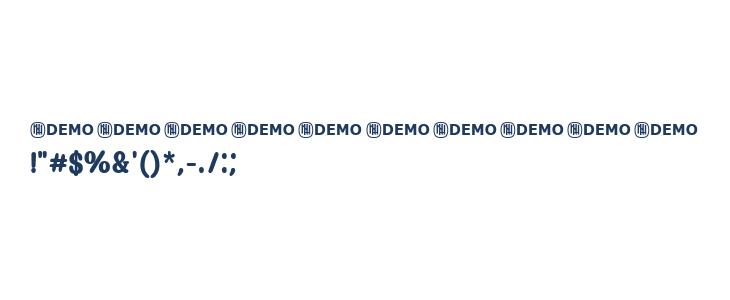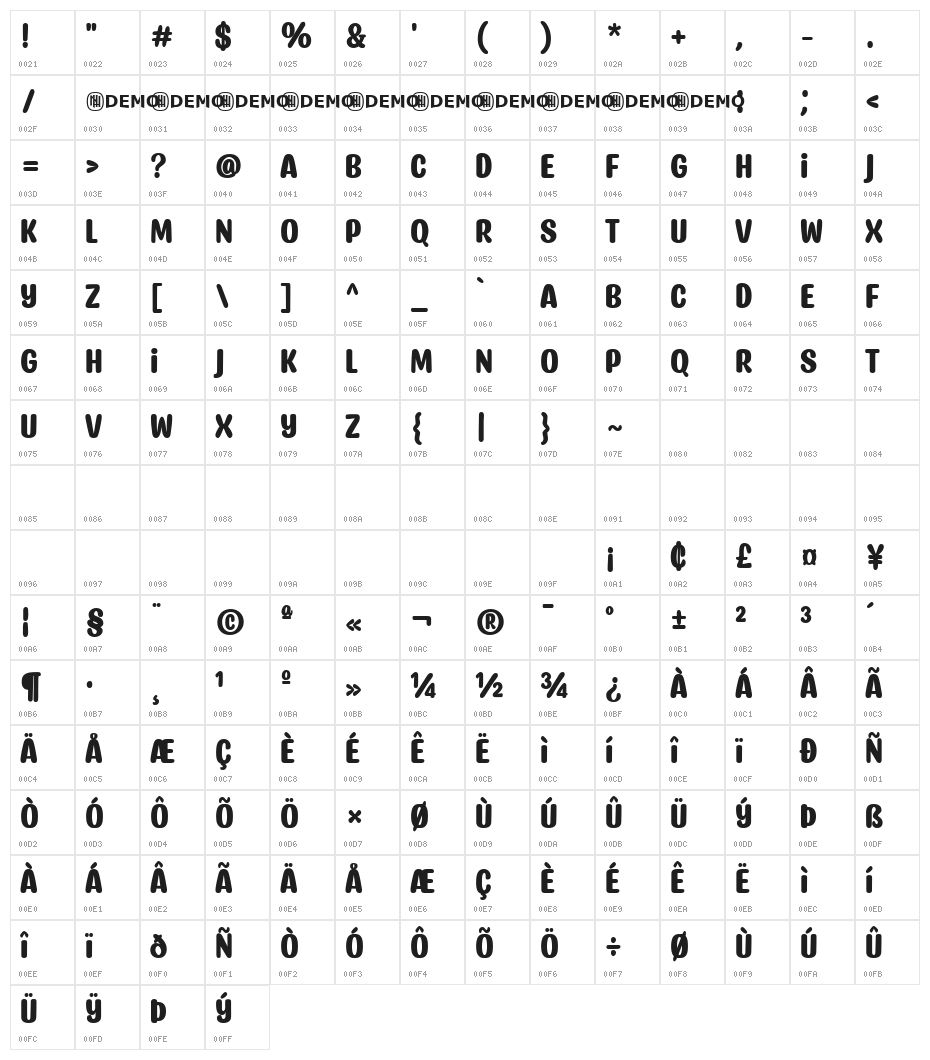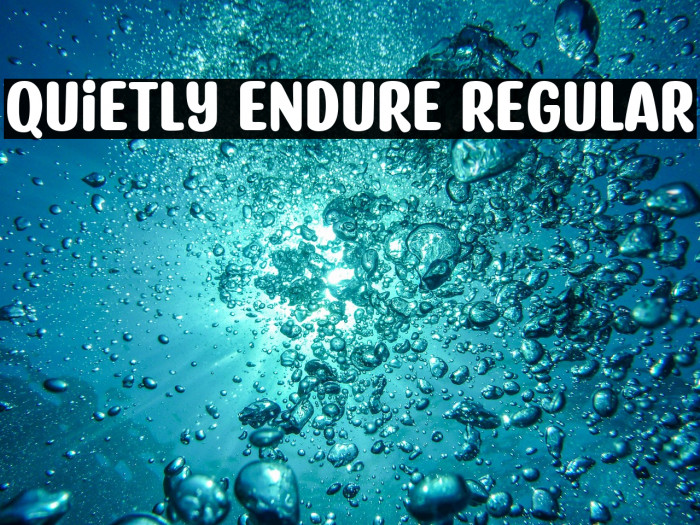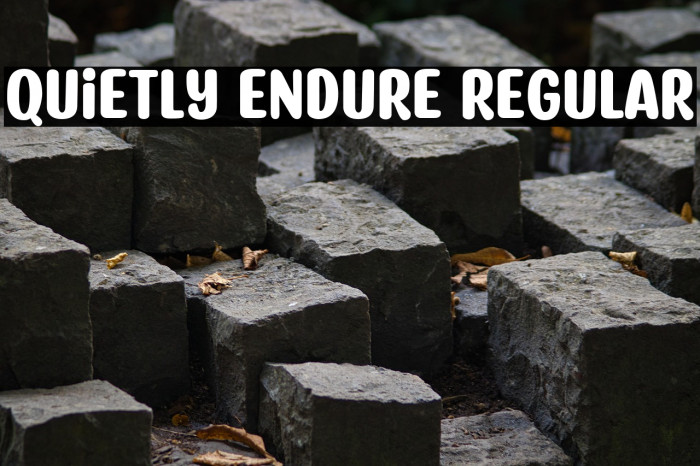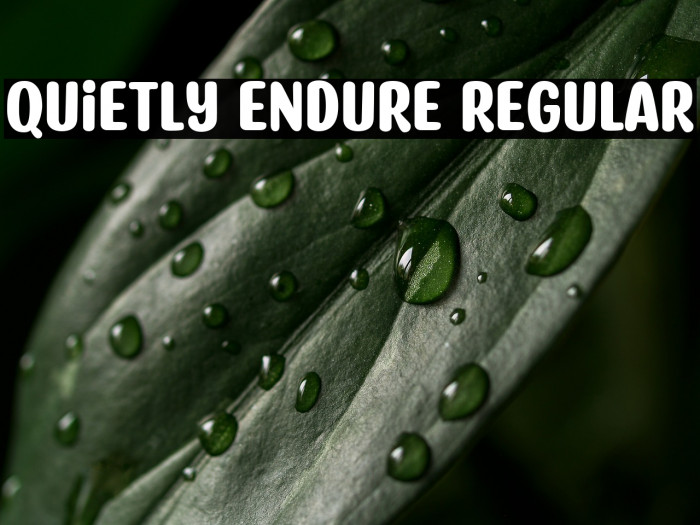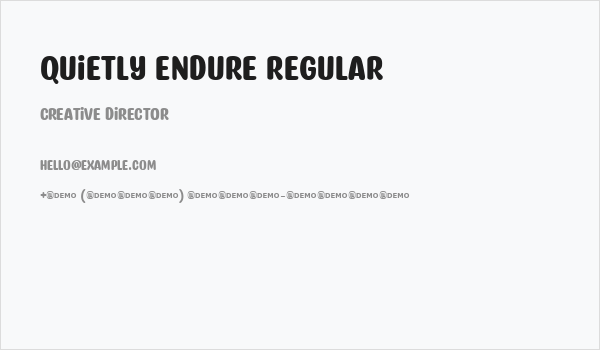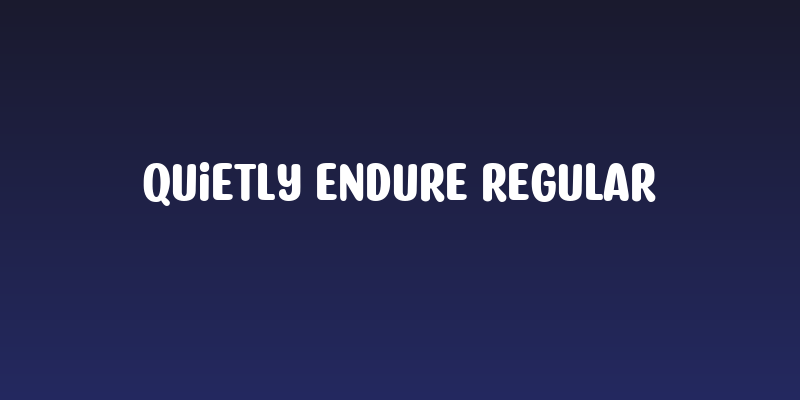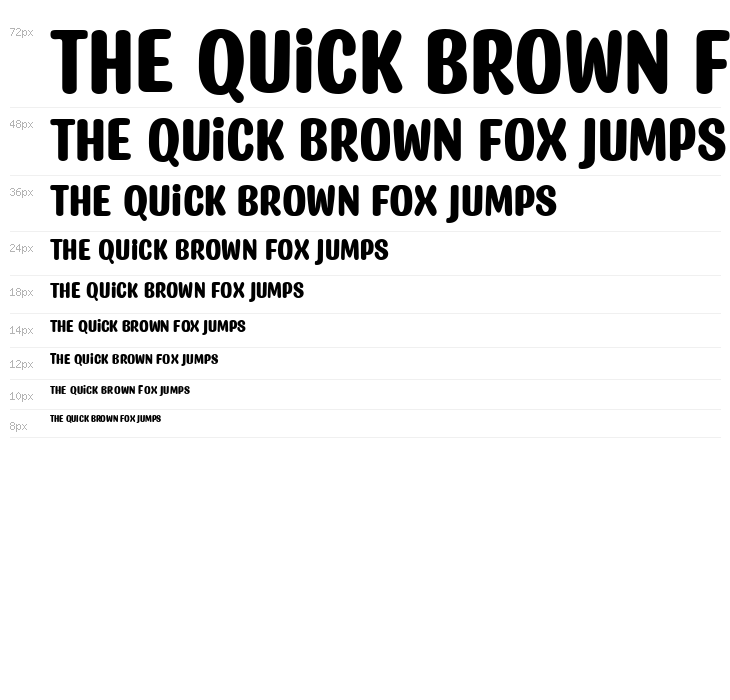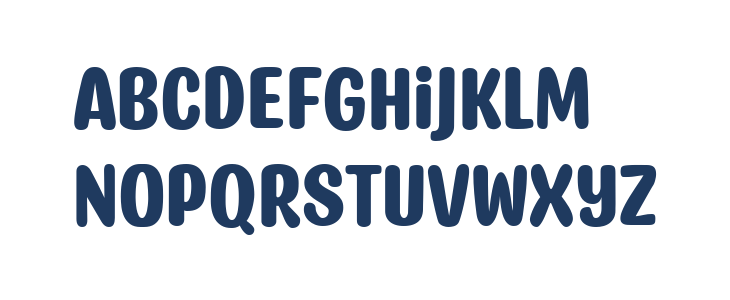
Quietly Endure Regular Font
Quietly Endure Regular Description
This font features bold, rounded characters that convey a playful and approachable aesthetic. The letters are evenly spaced, with a consistent stroke width that gives the typeface a uniform appearance. The rounded edges soften the overall look, making it suitable for friendly and informal designs. The uppercase and lowercase letters maintain a cohesive style, while the numerals and special characters complement the alphabet with similar rounded forms. This font's design is versatile, making it ideal for projects that require a warm and inviting touch.
Overall StylePlayful
Use CaseHeadlines, Logos, Informal Text
Proposed ProjectsIdeal for children's books, playful branding, casual invitations, and friendly product packaging.